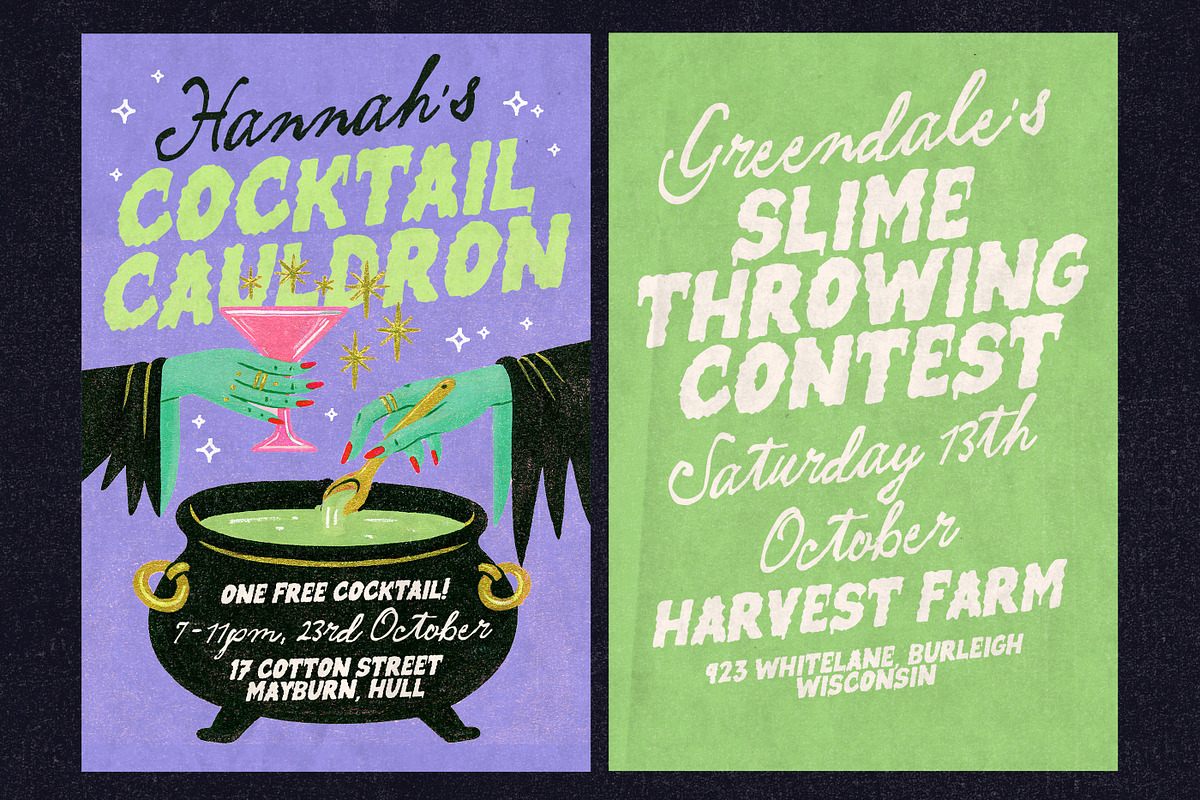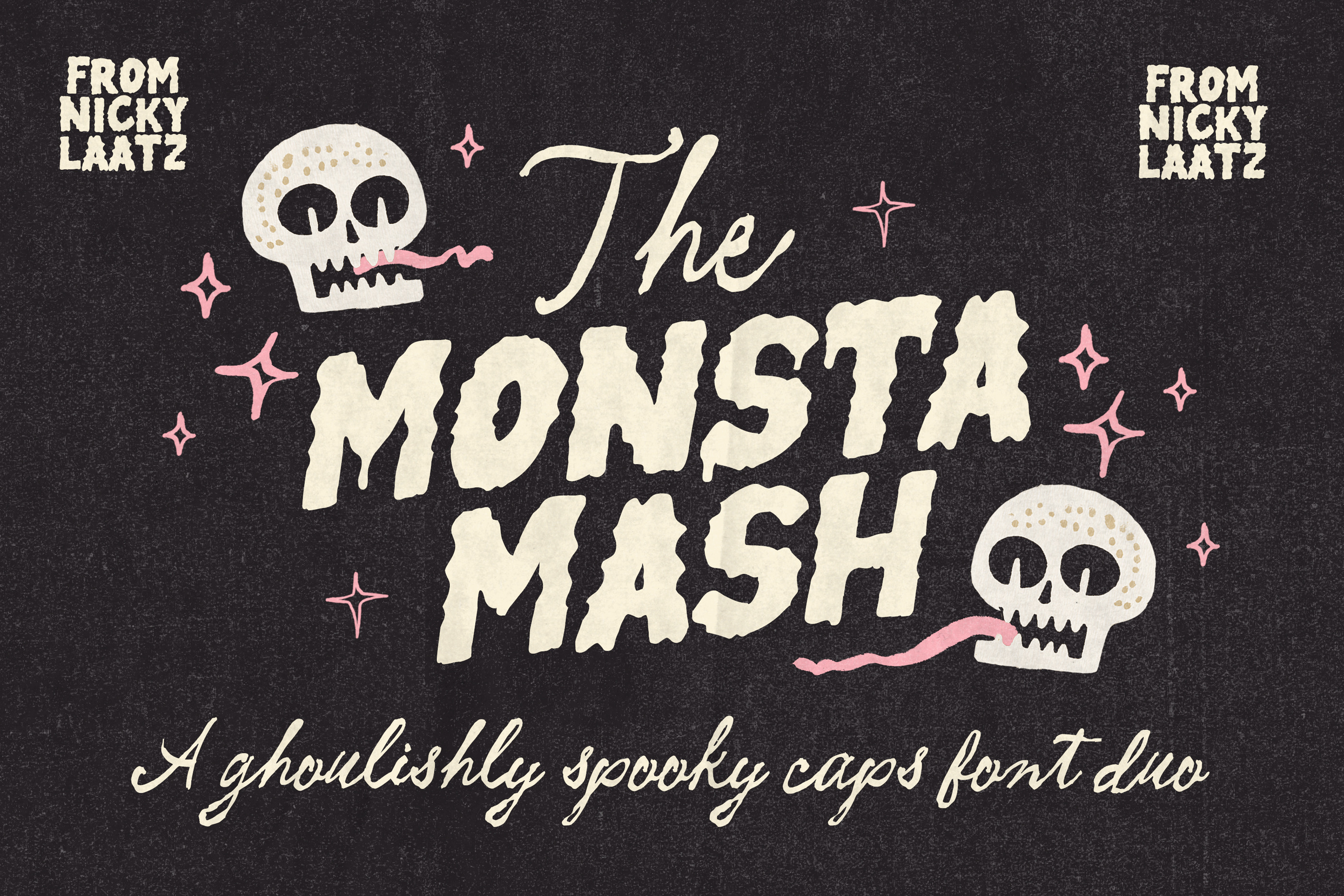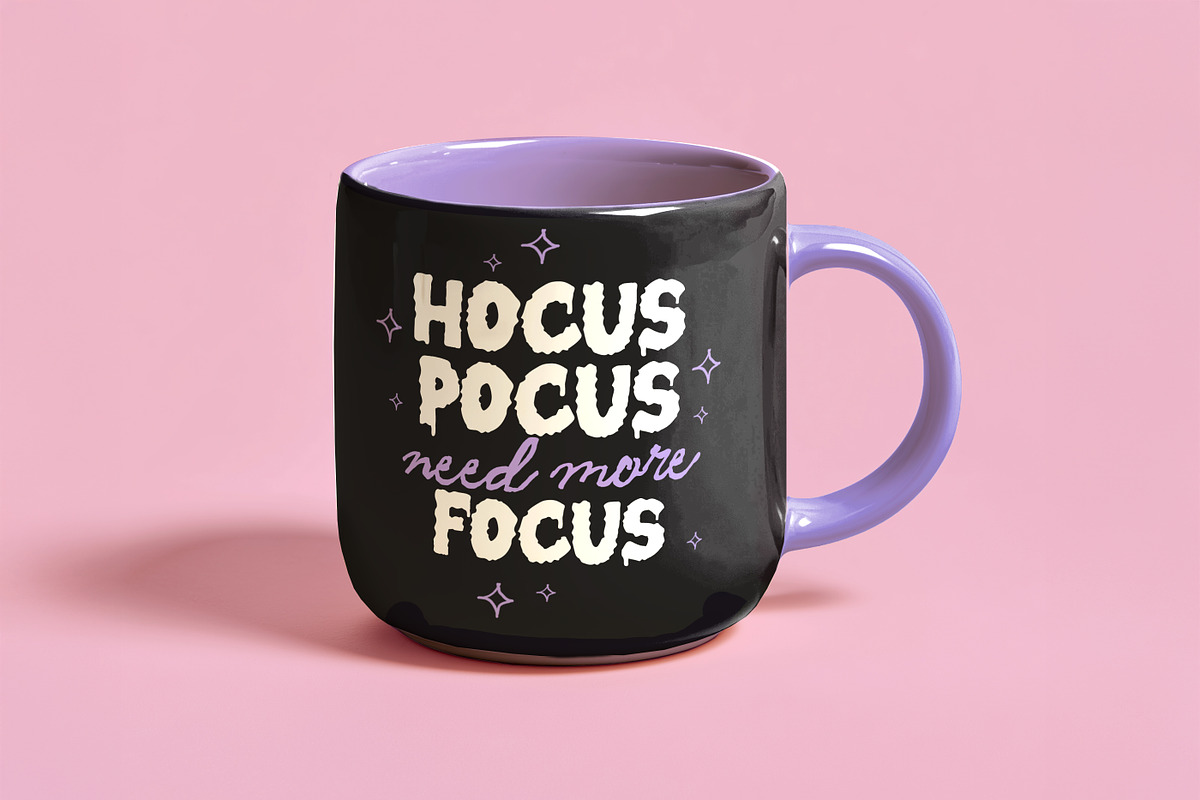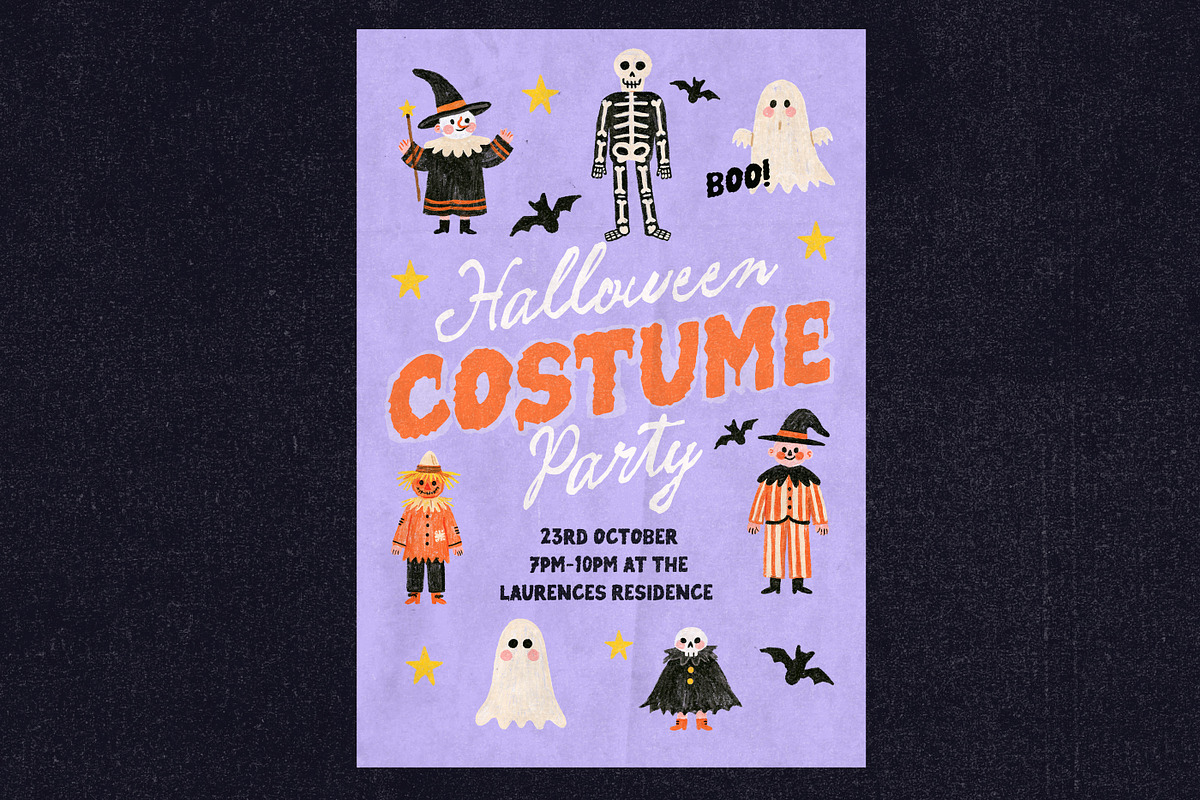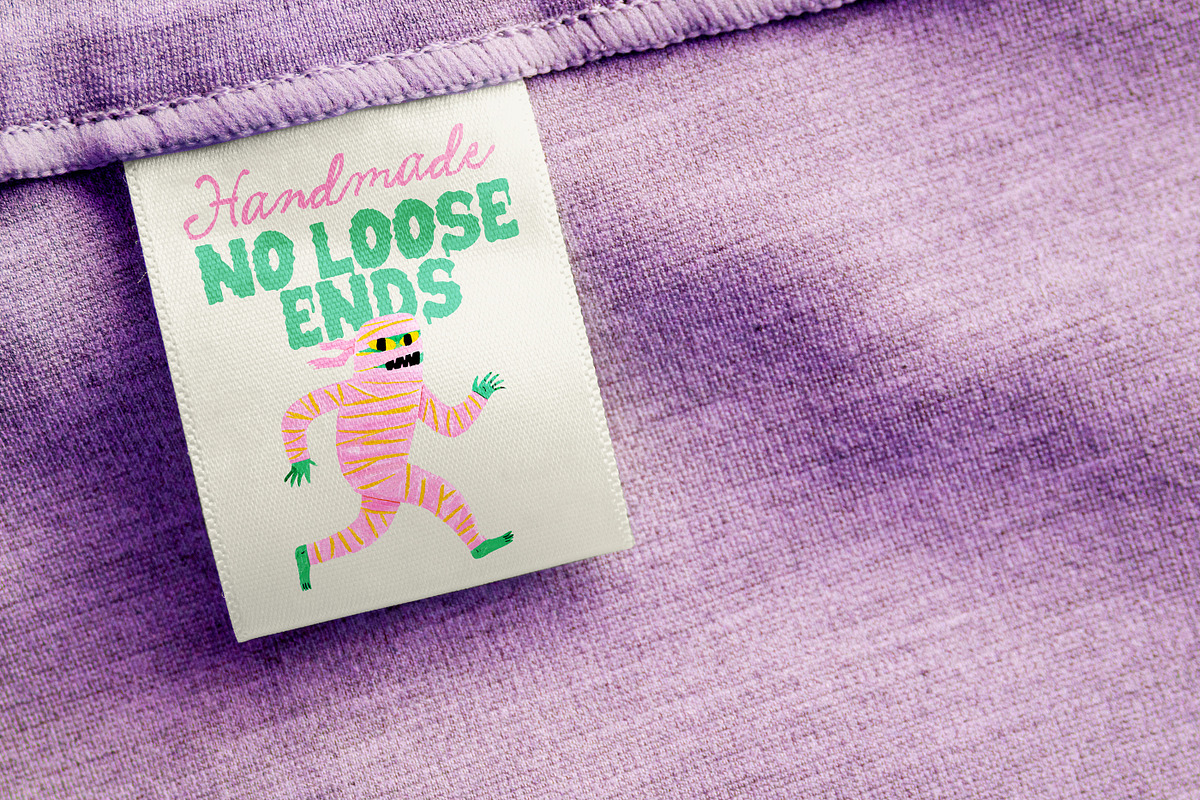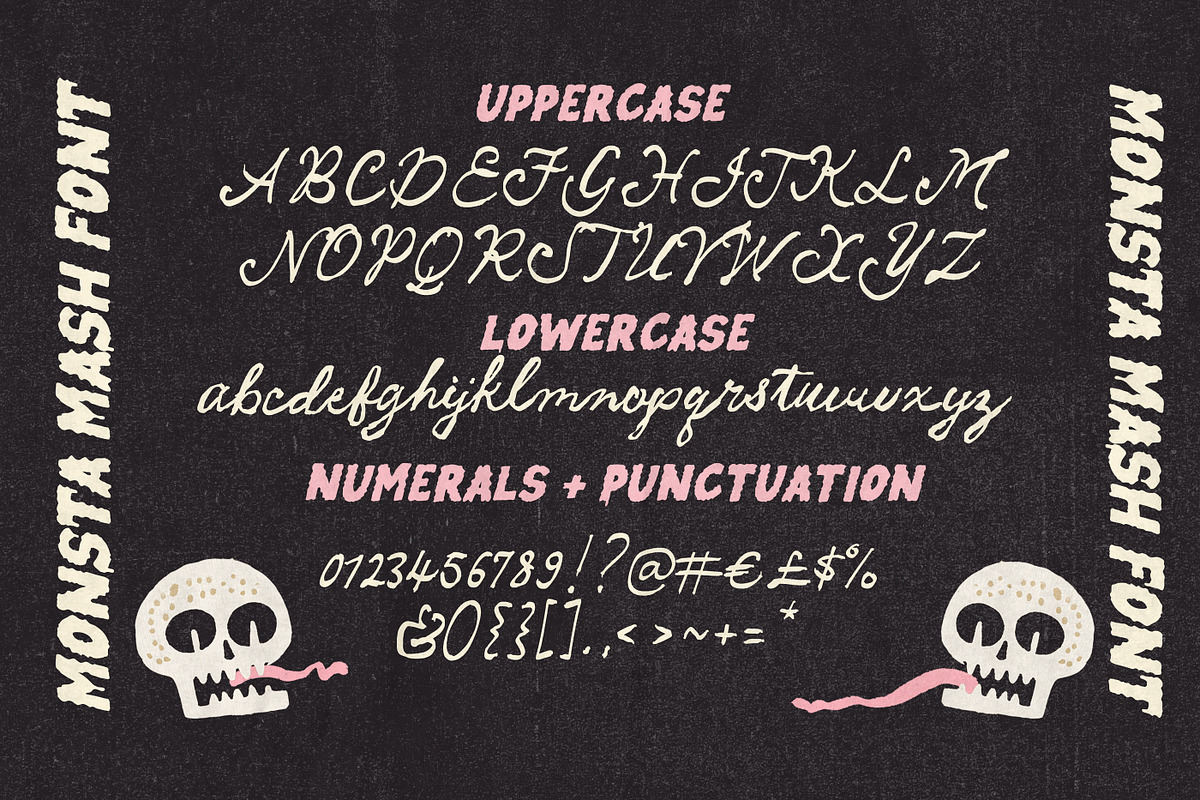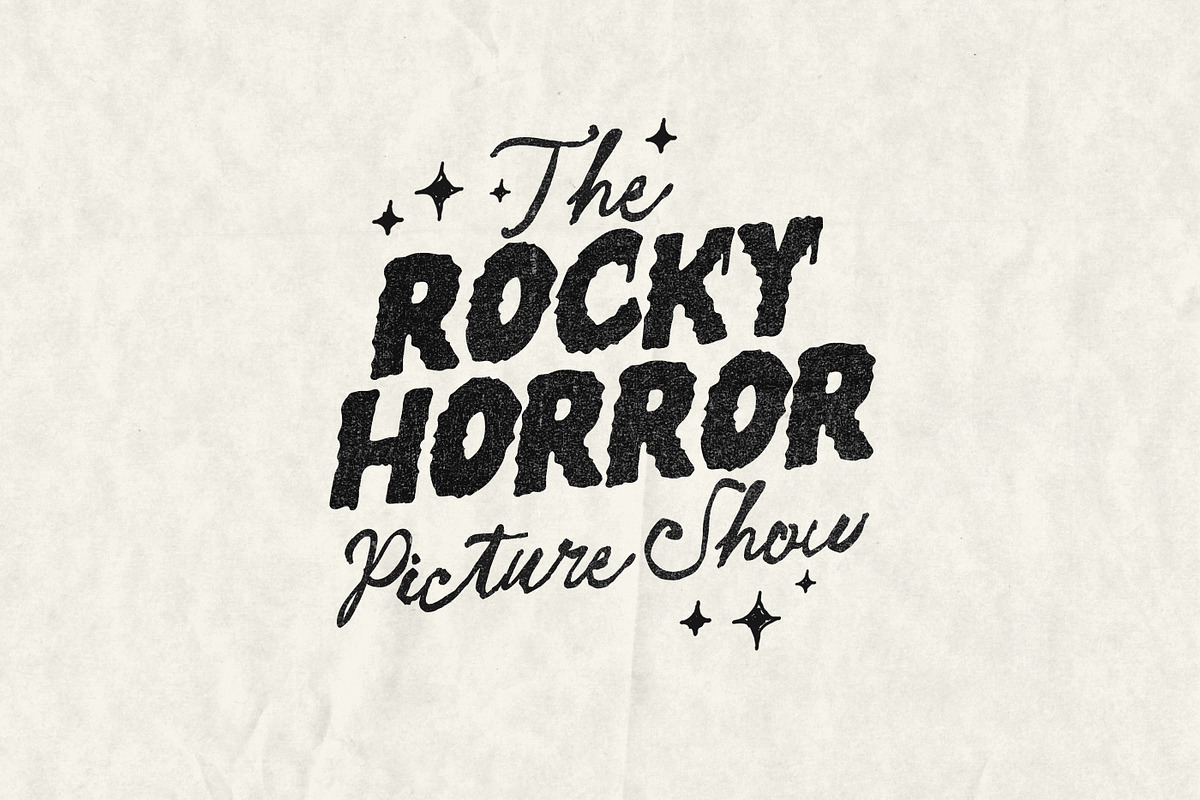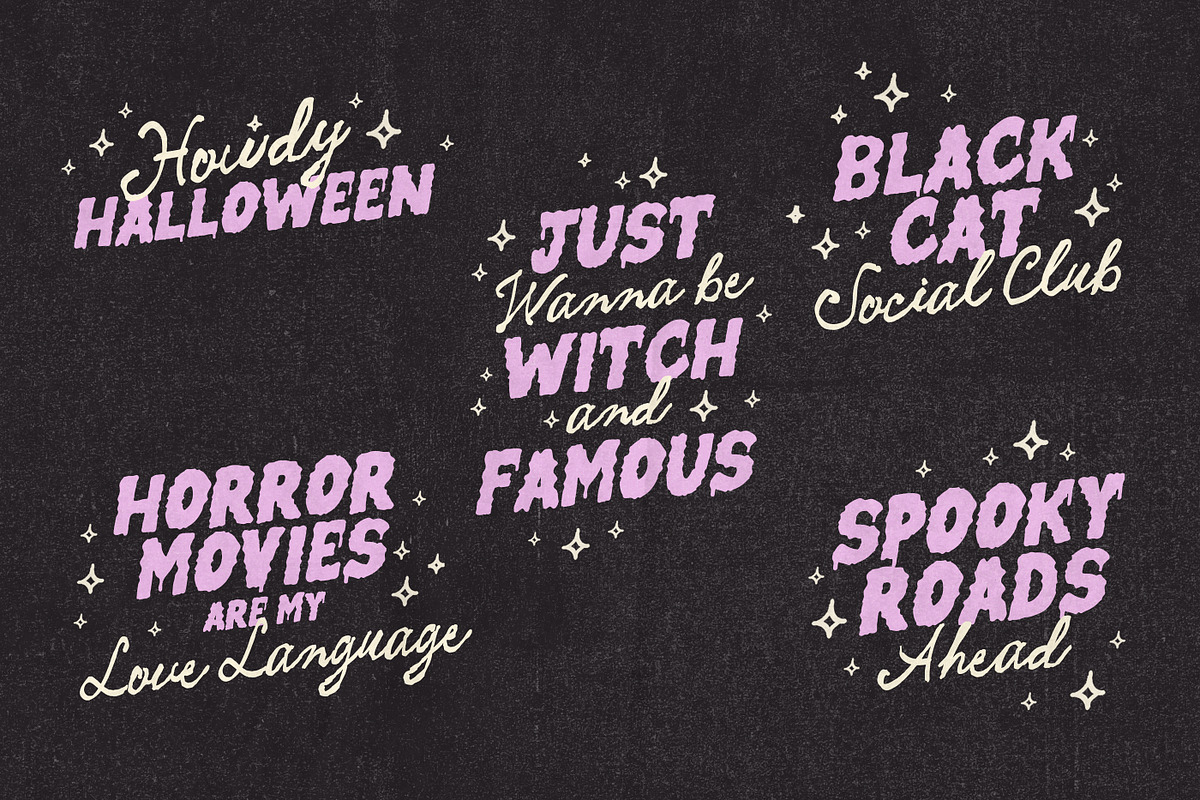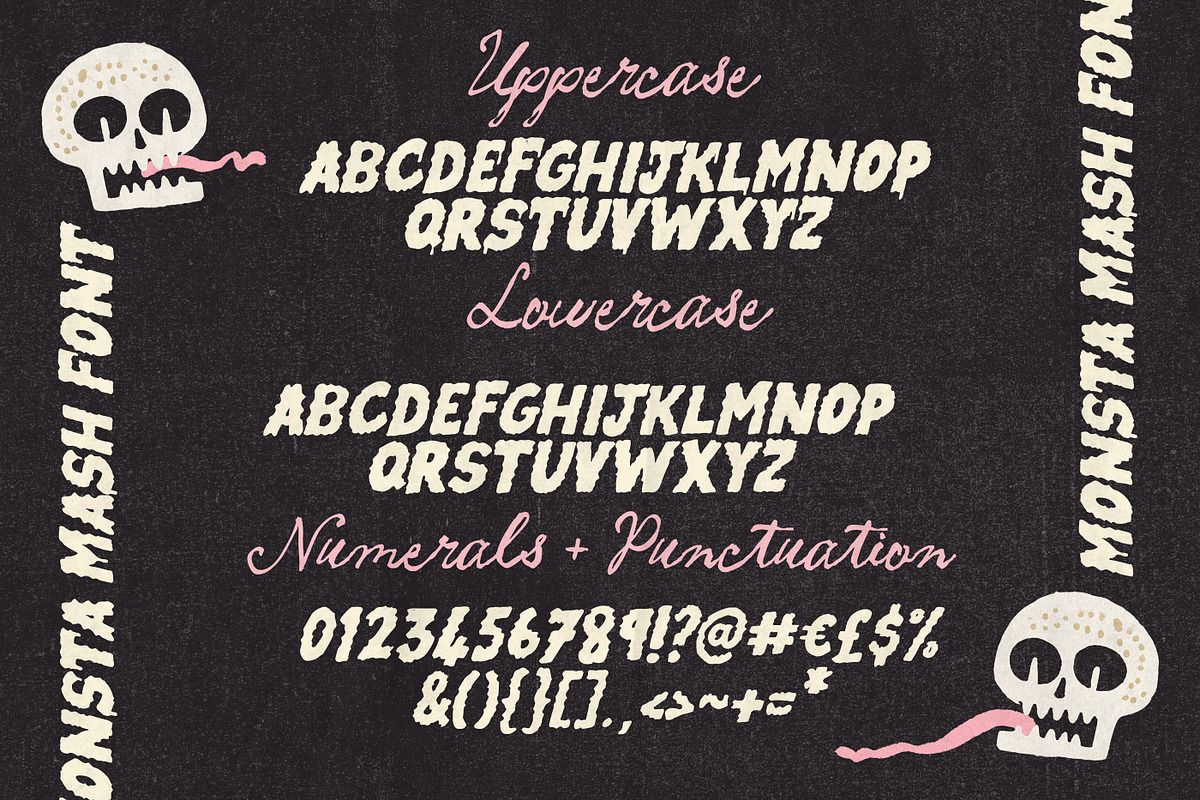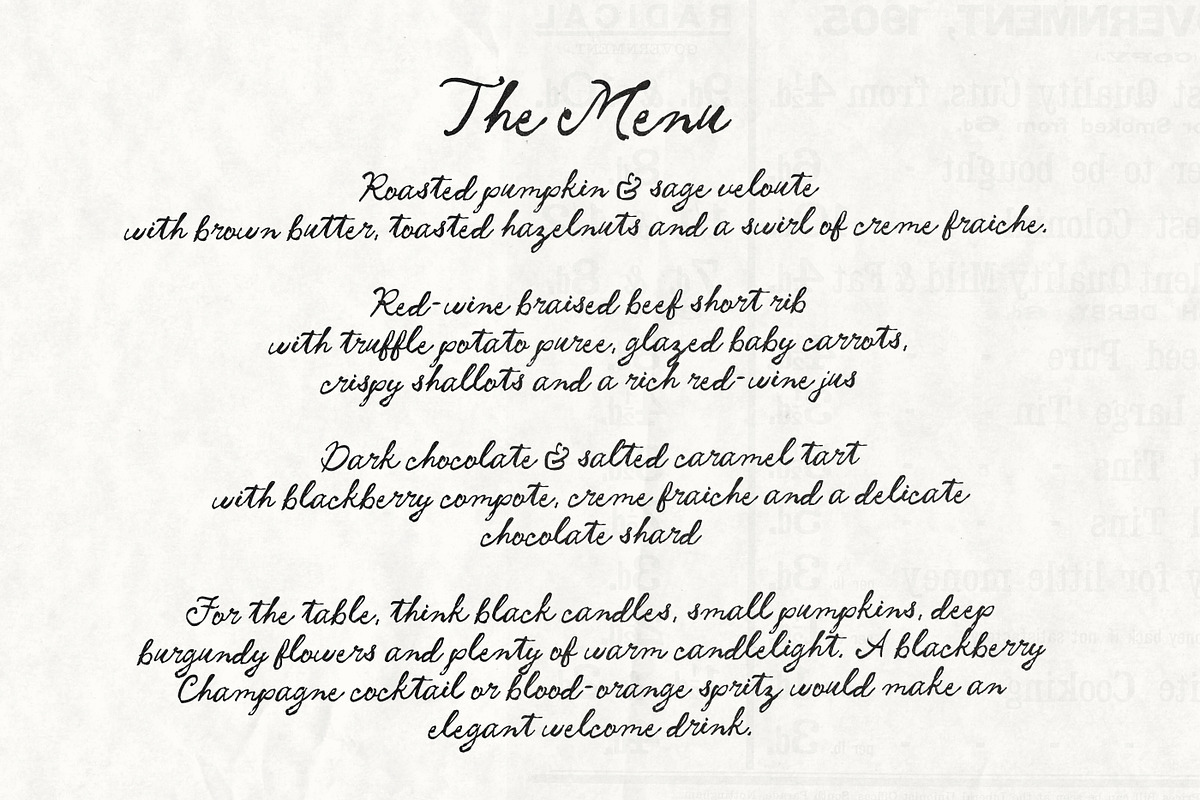
Monsta Mash Font Duo
Say hello to MONSTA MASH!! A Halloween Inspired Font Duo - ready to spook up your projects :) A Chunky, drippy caps, to add eeriness, and a wobbly witchy Script to add enchantment! Magical together, but just as eye-catching on their own!
Striking a sweet spot between creepy and cute, with just the right amount of mischief....The Monster Mash Duo adds a vintage inspired Halloween Spirit that is bound to impress :)
Perfect for Party Invites, posters, seasonal packaging and labels, greeting cards and spooky social media graphics!
The script comes with some handy variants in slant and slightly taller versions. The Caps has some bonus 'backing' fonts that make it look like you hand drew an outline around the font - perfect for a more handmade feel! It has a regular and slanted version of each.